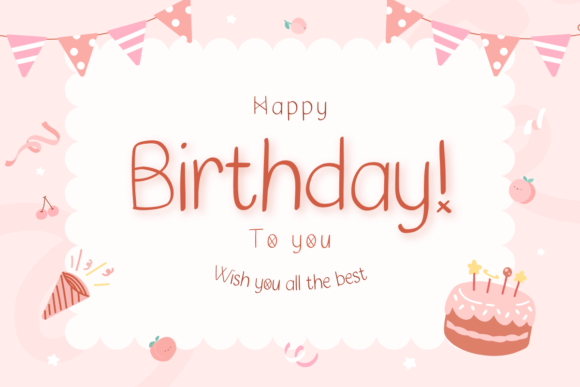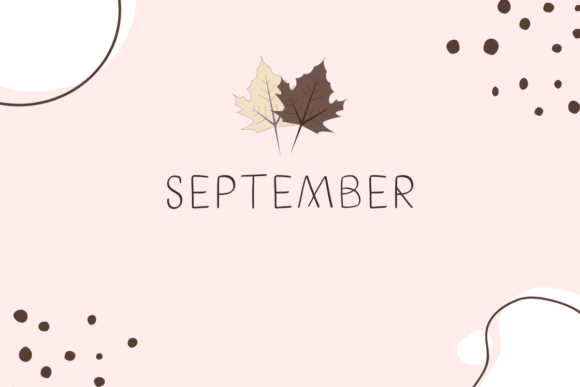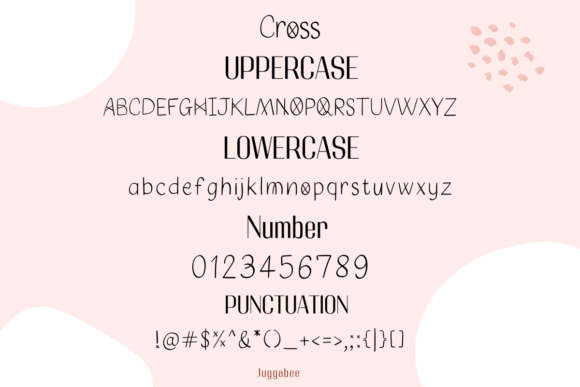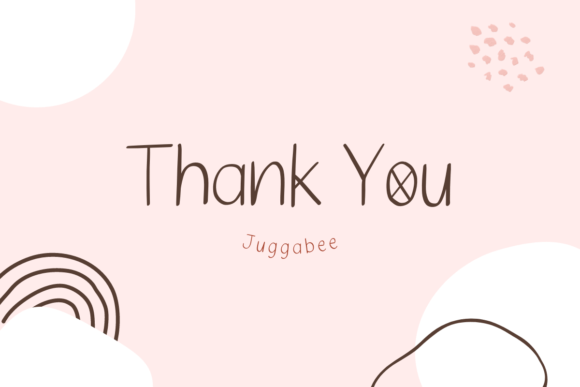
Introducing Cross Font: Elevate Your Designs with a Clean and Beautiful Handwritten Style
Are you on the hunt for a font that adds a touch of elegance and authenticity to your creative projects? Look no further than Cross Font, a stunning handwritten font that is both clean and beautiful. With its easily legible typography, Cross Font is perfect for designers and crafters who want to take their designs to the next level.
The Perfect Blend of Style and Legibility
Cross Font boasts a unique and authentic style that is sure to make your designs stand out. Its clean lines and beautiful handwritten curves make it perfect for a wide range of creative projects, from crafting and DIY tutorials to branding and advertising materials. Whether you’re looking to add a personal touch to your designs or create a professional-looking logo, Cross Font is the perfect choice.
Why Choose Cross Font?
So, what sets Cross Font apart from other fonts on the market? Here are just a few reasons why designers and crafters love working with this beautiful font:
- Authentic and Legible: Cross Font features authentic, handwritten typography that is easy to read and understand. This makes it perfect for designs that require a personal touch, such as invitations, greeting cards, and craft tutorials.
- Clean and Beautiful: With its clean lines and beautiful curves, Cross Font is a stunning addition to any design. Its unique style is sure to make your projects stand out and leave a lasting impression.
- Versatile: Cross Font is incredibly versatile and can be used for a wide range of creative projects, from digital designs to print materials.
How to Use Cross Font in Your Designs
Ready to add Cross Font to your design toolkit? Here are a few tips for getting the most out of this beautiful font:
- Pair it with Other Fonts: Cross Font pairs beautifully with other fonts, making it easy to create stunning combinations and add depth to your designs.
- Experiment with Colors: Don’t be afraid to experiment with different colors and textures to add an extra layer of interest to your designs.
- Use it for Headings and Body Text: Cross Font is perfect for both headings and body text, making it a versatile addition to any design.
Whether you’re a seasoned designer or a crafter looking to add a personal touch to your projects, here are a few tips for getting the most out of Cross Font:
- Keep it Simple: Don’t overcomplicate your designs. Cross Font is beautiful on its own, so let it shine!
- Play with Size and Scale: Experiment with different sizes and scales to add visual interest to your designs.
- Have Fun: Most importantly, have fun with Cross Font! Its unique style and versatility make it the perfect choice for creative projects of all kinds.
In conclusion, Cross Font is a beautiful and versatile handwritten font that is perfect for designers and crafters looking to add a touch of elegance and authenticity to their creative projects. With its clean lines, beautiful curves, and easily legible typography, Cross Font is sure to take your designs to the next level. So why wait? Download Cross Font today and start creating stunning designs that will leave a lasting impression!